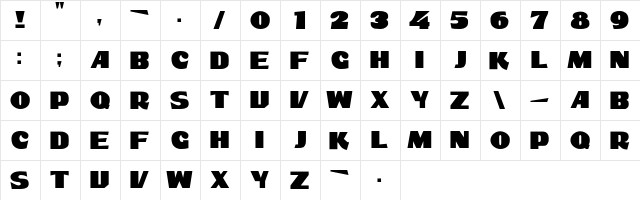
DS ShowBillC Regular
Design Context for DS ShowBillC Typeface
DS ShowBillC offers clean, dependable letterforms without strong stylistic allegiance, making it a practical choice for designers who need flexibility.